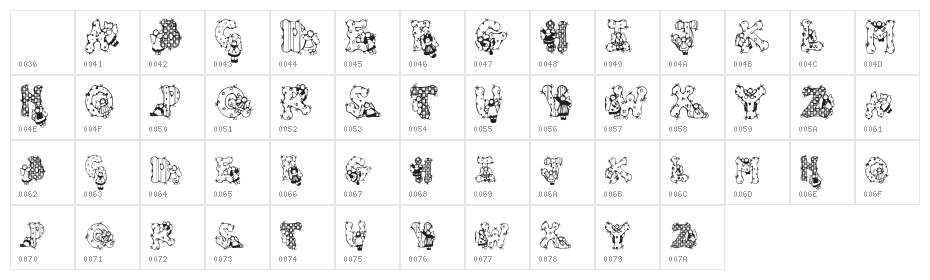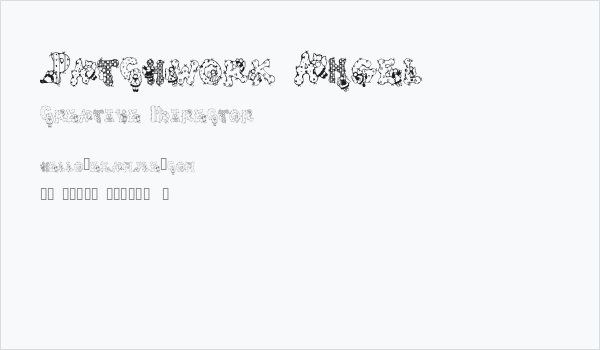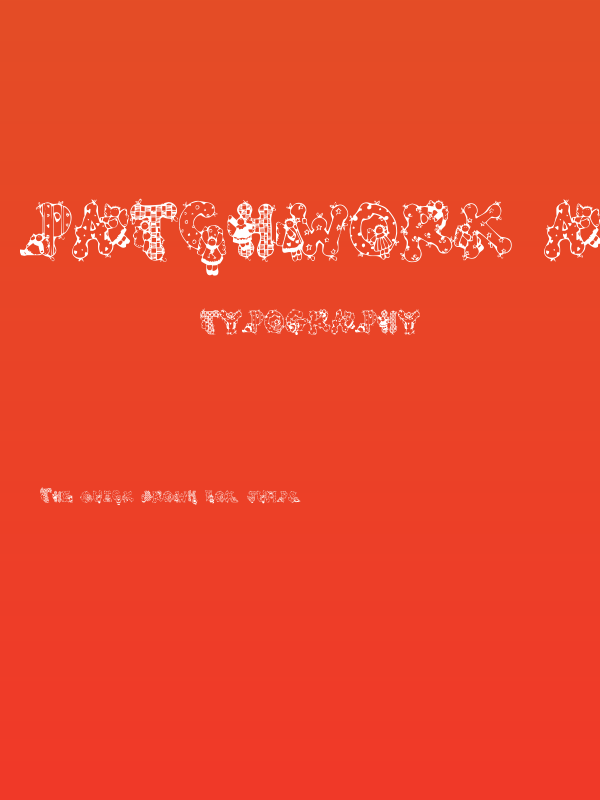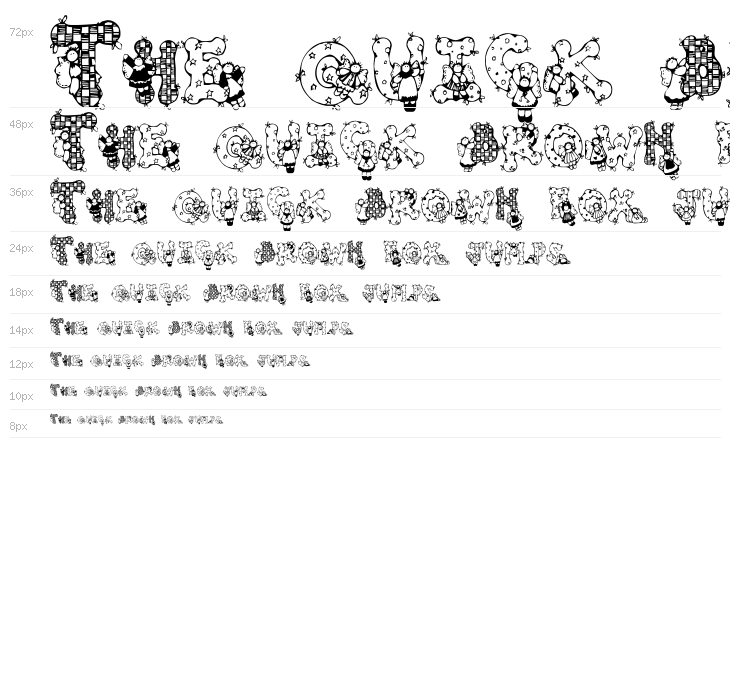
Patchwork Angel Font
Patchwork Angel Description
This decorative font features a whimsical and playful style, incorporating patchwork patterns and angelic motifs within each character. The letters are adorned with intricate details, including floral and geometric designs, creating a unique and artistic appearance. The overall look is reminiscent of handcrafted textiles, making it ideal for projects that require a touch of creativity and charm. The font's distinctive style captures attention and adds a layer of visual interest, perfect for artistic and thematic designs.
Use CaseHeadlines, Artistic projects, Thematic designs
Proposed ProjectsIdeal for children's book covers, craft projects, greeting cards, and whimsical branding.